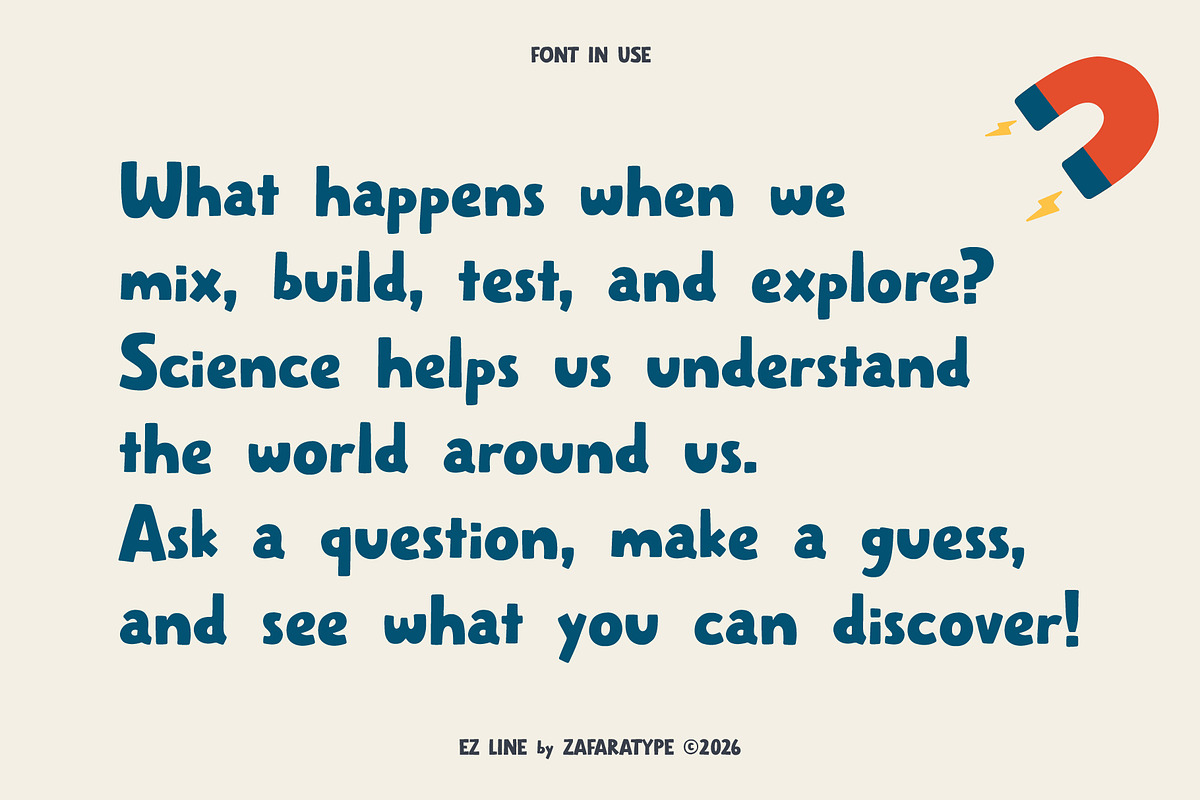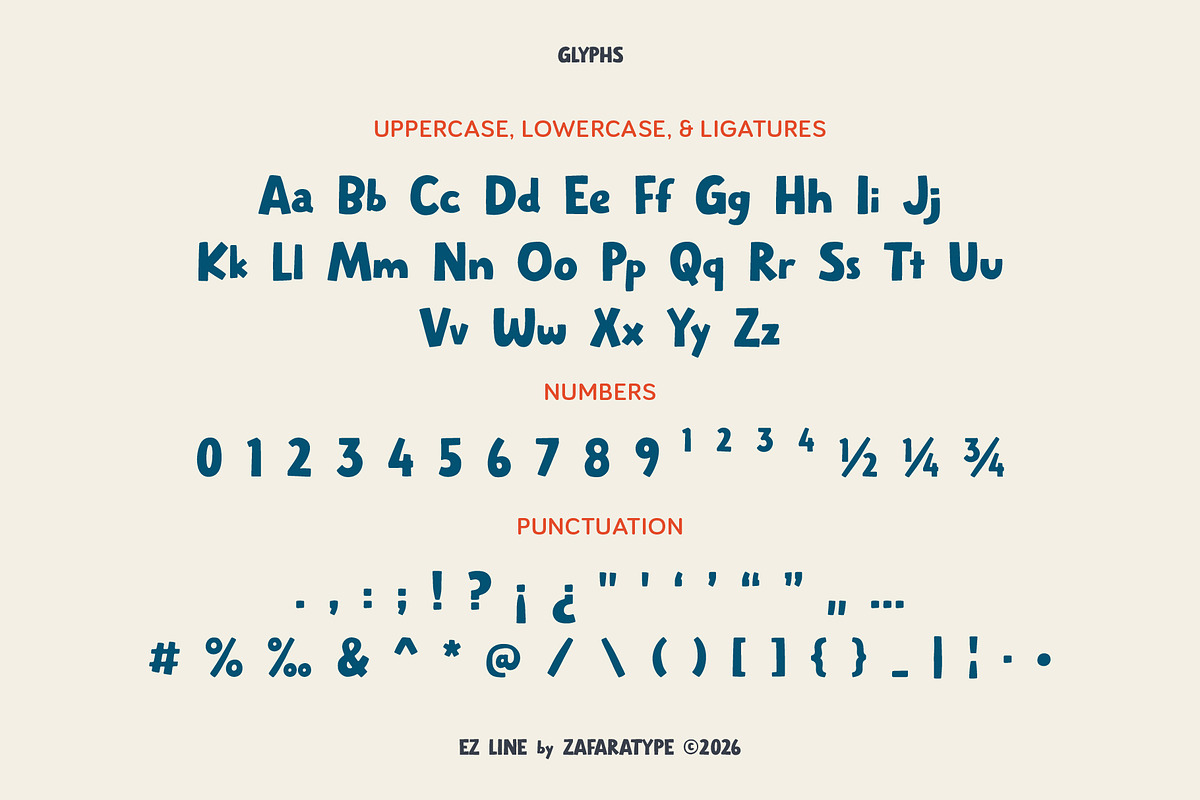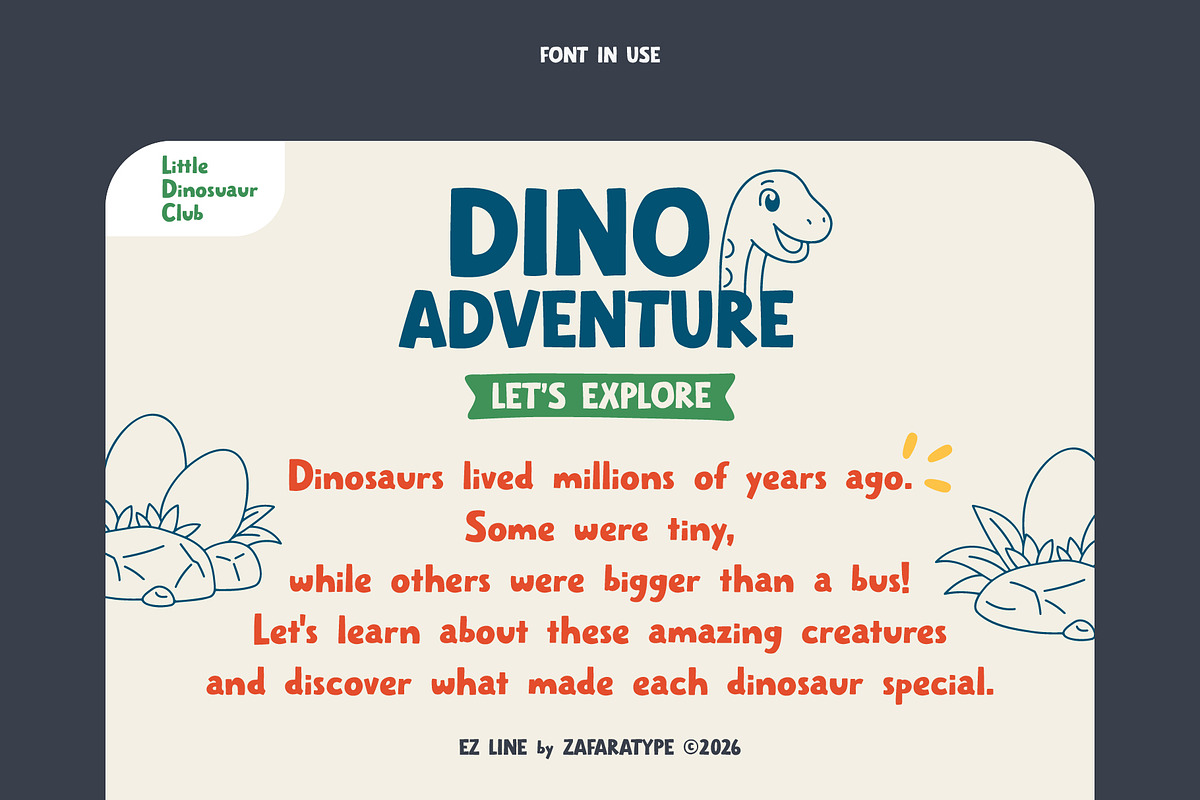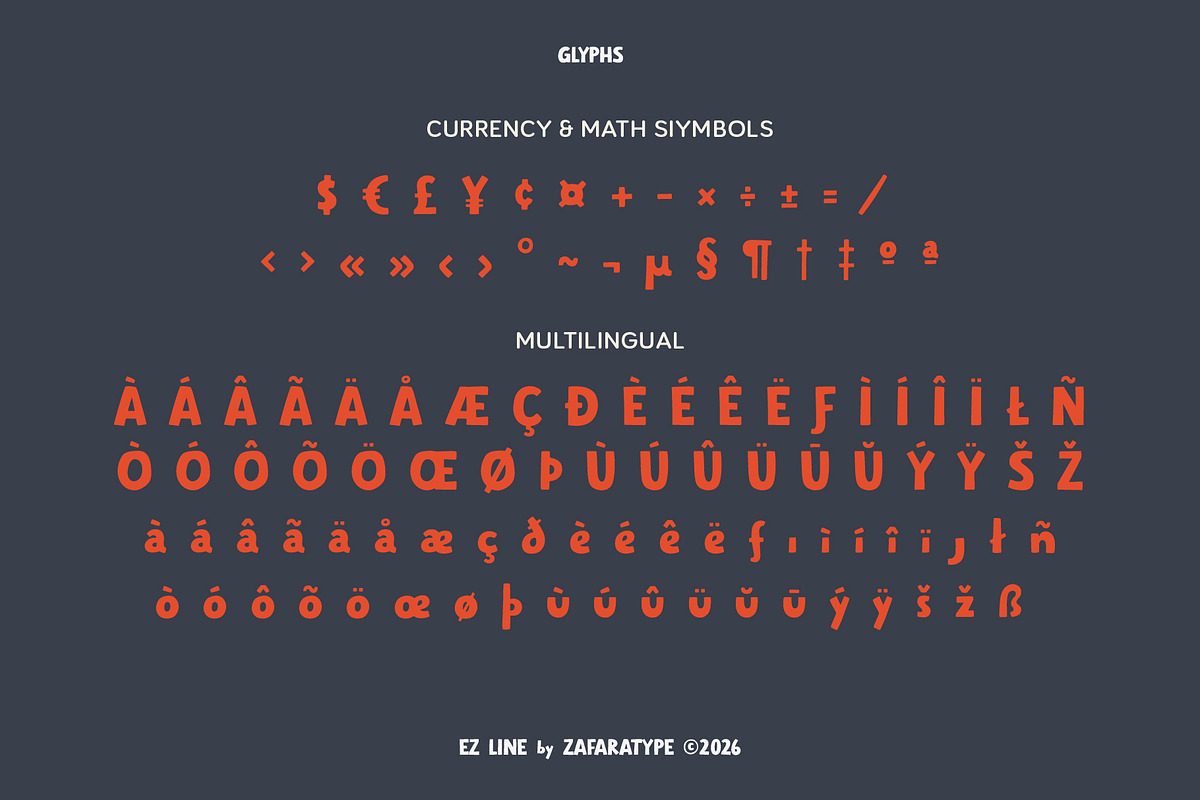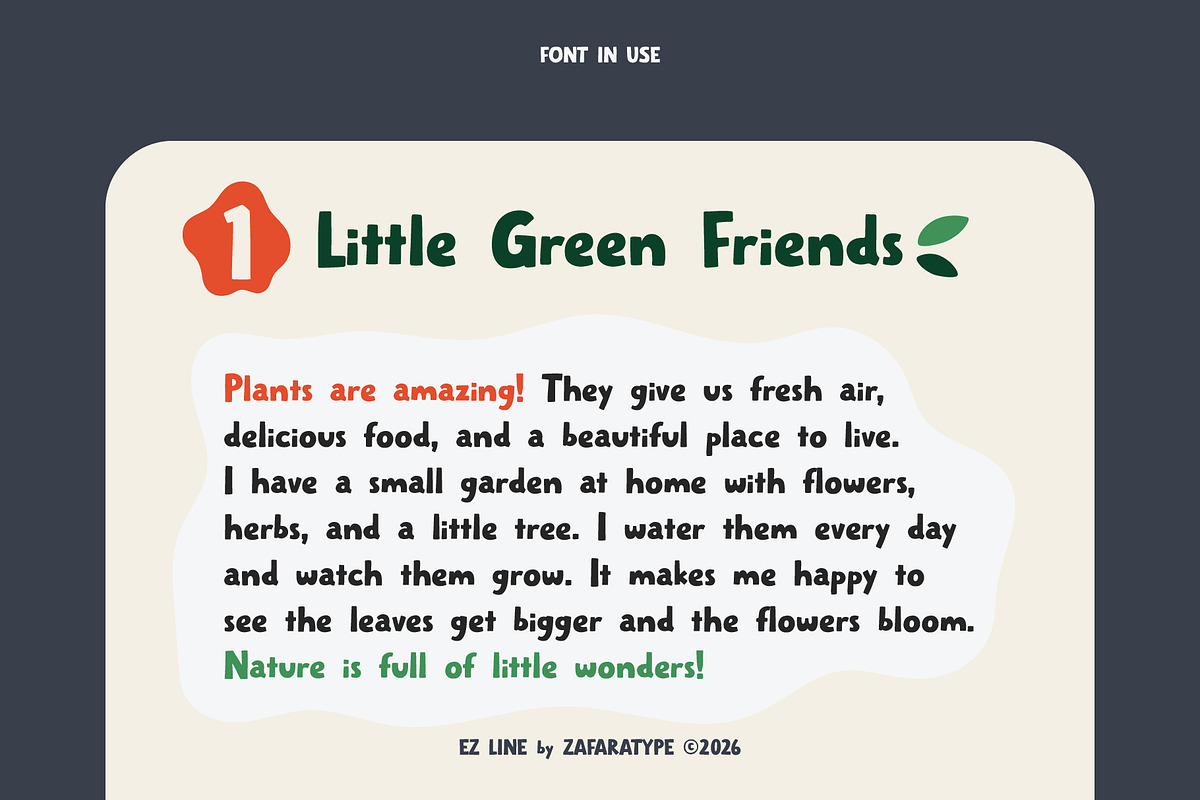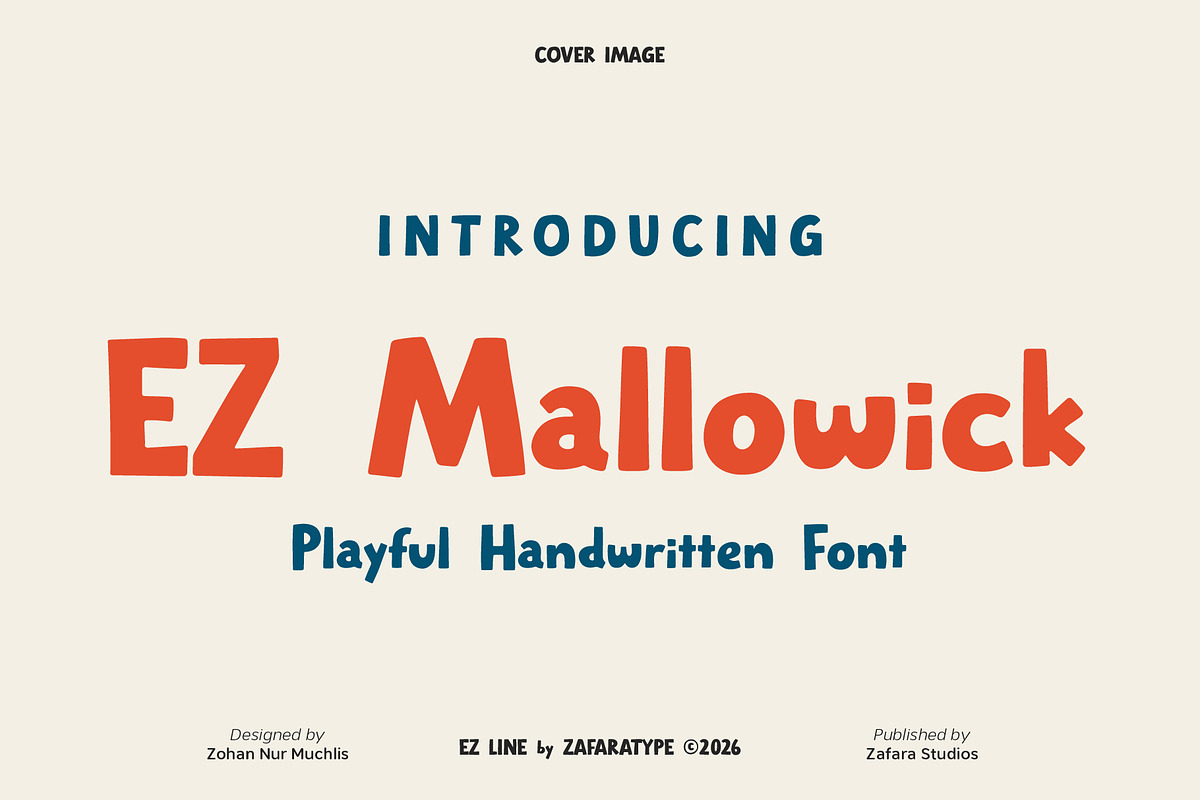
EZ Mallowick
EZ Mallowick is a charming and playful handwritten font that blends bold, rounded strokes with a fun and expressive personality. Featuring chunky letterforms, soft curves, and naturally bouncy details, it brings a cheerful and friendly touch to your designs while keeping every word bold, warm, and full of character.
Designed to capture the charm of playful, expressive handwriting, EZ Mallowick is perfect for branding, logos, packaging, posters, social media, greeting cards, quotes, children’s designs, stickers, merchandise, and other creative projects. Its bold yet approachable style makes every design feel fun, casual, and memorable.
The details:
243 glyphs: Uppercase, lowercase, ligatures, numbers & punctuation, symbols & accents, multilingual support
25 languages: Afrikaans, Albanian, Basque, Catalan, Danish, Dutch, English, Estonian, Faroese, Filipino, Finnish, French, Galician, German, Icelandic, Indonesian, Irish, Italian, Malay, Norwegian Bokmål, Portuguese, Spanish, Swahili, Swedish, Zulu